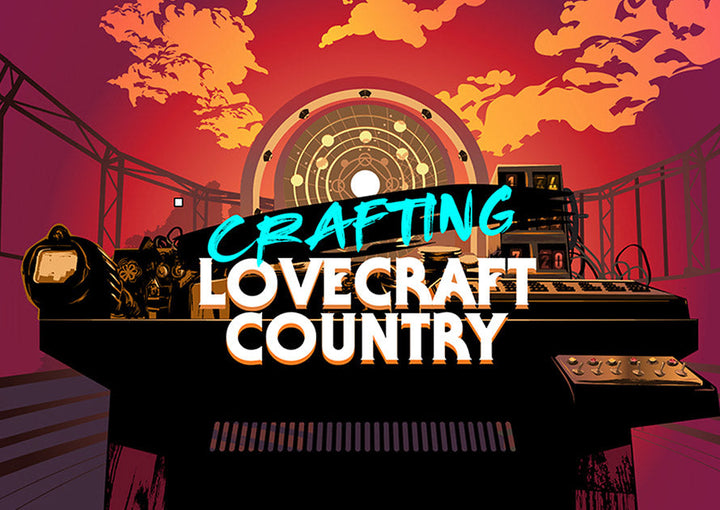
The Rocked SVG font was featured in HBO’s critically acclaimed series Lovecraft Country. Blending themes of cosmic horror and racial injustice, the show earned 18 Emmy nominations and captivated audiences with its storytelling and design. Rocked’s gritty aesthetic perfectly complemented the eerie and dynamic world of Lovecraft Country.